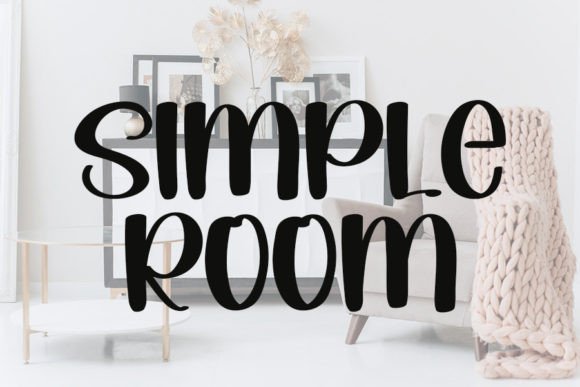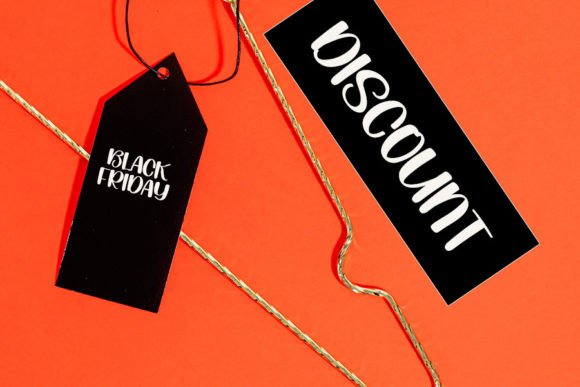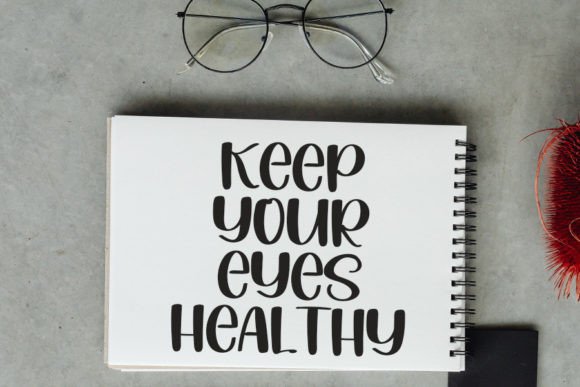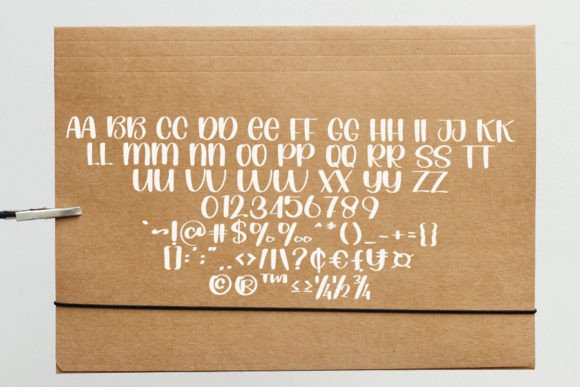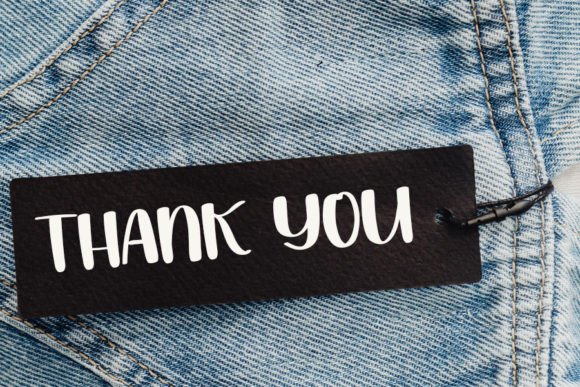
Introduction to Milk Cake Font
As designers, we’ve all had those moments where a single font can elevate an entire project from good to great. For me, that moment came when I stumbled upon the Milk Cake Font – a stylish handwritten display font that exudes a contemporary atmosphere and impeccable form. Its balanced and varied design makes it the perfect addition to any creative project, whether it’s a branding campaign, a digital poster, or even a wedding invitation.
What I love about the Milk Cake Font is its ability to add a touch of elegance and sophistication to any design. Its high-quality design makes it a valuable resource for designers looking to create stunning visuals. And the best part? It’s available for free download, making it an accessible design resource for creatives of all levels. Whether you’re working on a project with a transparent background or a bold, eye-catching design, the Milk Cake Font is sure to impress.
Key Features of Milk Cake Font
- High-quality design: Milk Cake Font is a beautifully crafted font, perfect for creative projects that require a touch of elegance and sophistication.
- Large character set: Milk Cake Font includes a large character set, including uppercase and lowercase letters, numbers, and punctuation marks.
- Unique, hand-drawn design: Milk Cake Font features a unique, hand-drawn design that adds a personal touch to any creative project.
Honest Review: Milk Cake Font
I recently had the chance to work with the Milk Cake Font, and I have to say, it’s a great addition to any designer’s arsenal. The font is a free download, which is always a bonus, and it comes with a transparent background, making it easy to use in any design project.
Here are some things that work well with the Milk Cake Font:
- ✨ High-quality design: The font is well-designed and looks professional, making it perfect for creative projects.
- ✨ Versatility: The font comes in a range of weights and styles, making it easy to use in a variety of design contexts.
However, there are a few limitations to the Milk Cake Font:
- ⚠️ Limited language support: The font only supports a limited range of languages, which may be a problem for designers working on international projects.
- ⚠️ Not ideal for small text: The font may not be the best choice for small text, as it can be difficult to read at smaller sizes.
Overall, I’m impressed with the Milk Cake Font. It’s a great resource for designers, and it’s perfect for creative projects that require a high-quality, unique font. Just be aware of the limitations, and you’ll be all set.
Tips for Getting the Most Out of Milk Cake Font
Milk Cake Font is ideal for various design projects, including food blogs, baking businesses, and wedding invitations. Its elegant and sophisticated design makes it a great choice for any creative project that requires a high-quality font.
Q: Is the Milk Cake Font suitable for digital and print projects?